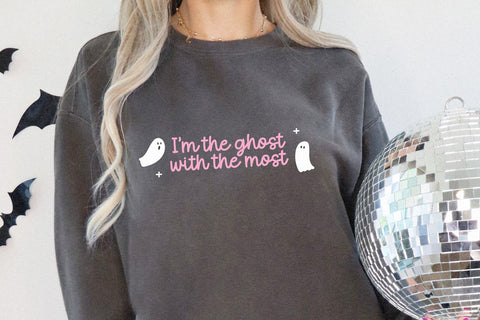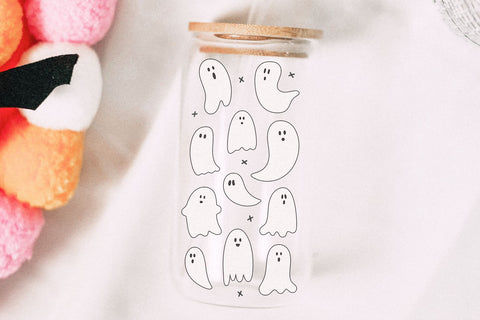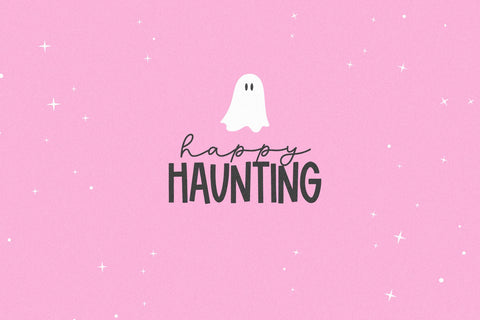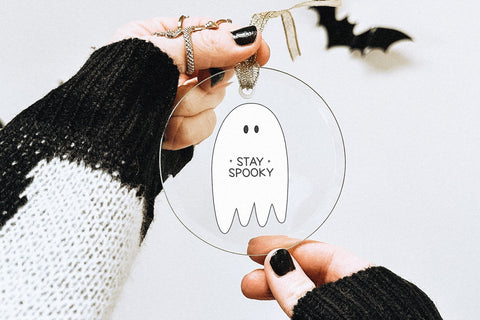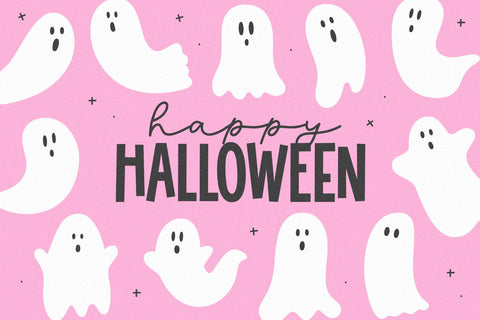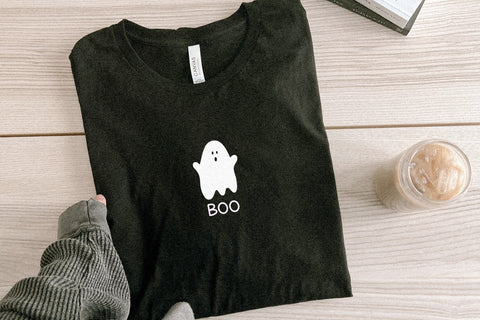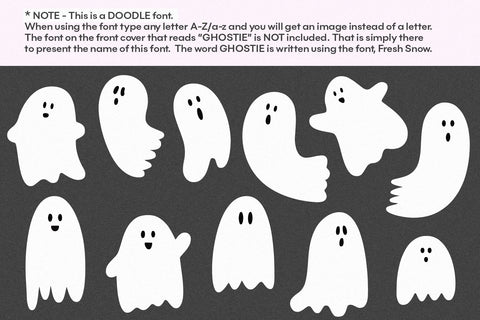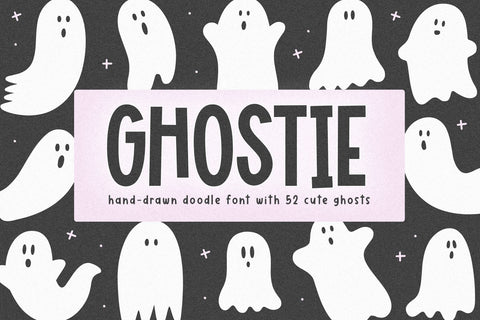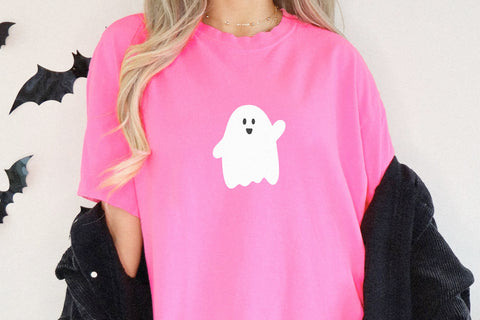
Ghostie - Halloween Doodle Font
Ghostie is a doodle font with 52 cute + spooky ghosts!
NOTE *THIS IS A DOODLE FONT*
When you type with any letter A-Z/a-z, you will get an image instead of a letter. The font on the font cover that is used for "GHOSTIE" is NOT included. This is only to present the name of the doodle font. That font is called Fresh Snow.
Ghostie is perfect for cricut projects, halloween shirts, svg designs, logos, invitations, halloween decor, procreate, greeting cards, posters, social media, stickers and more!